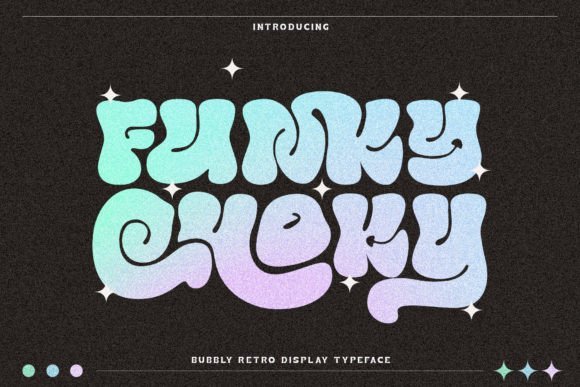
Have you ever been stuck in a design rut, struggling to find the perfect font to bring your project to life? We’ve all been there. It’s like staring at a blank canvas, waiting for inspiration to strike. But what if I told you that there’s a font that can shake off that creative block and inject some much-needed energy into your design?
Enter the Funky Choky Font, a captivating and modern typeface that’s designed to make a statement. This funky font combines the whimsy of bubble dynamics with a bold and playful style, making it the perfect choice for projects that require a fresh and vibrant look. Whether you’re designing a new logo, creating a social media campaign, or crafting a marketing brochure, the Funky Choky Font is sure to bring your vision to life.
Funky Choky Font Key Features
- Font Family: Funky Choky Font
- Unique Characteristics: Funky Choky Font features a distressed, hand-drawn style with bold lines and playful letterforms, making it perfect for creative and whimsical designs.
Funky Choky Font Review
I have to say, I was a bit skeptical when I first laid eyes on Funky Choky Font. But, after giving it a try, I found that it’s got some unique qualities that make it stand out. ✨
- Unconventional charm**: Funky Choky Font has a certain je ne sais quoi that’s hard to resist. Its quirky, hand-drawn feel adds a touch of personality to any design.
- Playful versatility**: This font is surprisingly versatile, working well for both digital and print projects. I loved experimenting with it for different design scenarios.
- Expressive variations**: Funky Choky Font comes with a range of stylistic sets and ornaments that allow for creative expression and customization.
However, I do have some reservations about Funky Choky Font. ⚠️
- Legibility concerns**: In some contexts, the font’s irregularities can make it challenging to read, especially for longer blocks of text.
- Not ideal for body text**: Funky Choky Font is best suited for headlines, titles, or short quotes. Using it for large chunks of body text might lead to fatigue.
Overall, Funky Choky Font is a fun, creative addition to any designer’s toolkit. While it may not be the most practical choice for every project, it’s certainly worth having in your arsenal for those occasions when you need to add some personality to your designs.
Getting the Most Out of Funky Choky Font
To get the most out of Funky Choky Font, experiment with different font sizes, styles, and combinations to create unique and eye-catching designs.
Funky Choky Font is ideal for creative projects such as:
Carolyna Pro is a modern script font that is perfect for creating a sophisticated and elegant look. It is great for use in high-end designs, or for creating a luxurious and refined atmosphere. Compared to Funky Choky Font, Carolyna Pro has a more refined and polished feel, making it suitable for a wider range of designs.